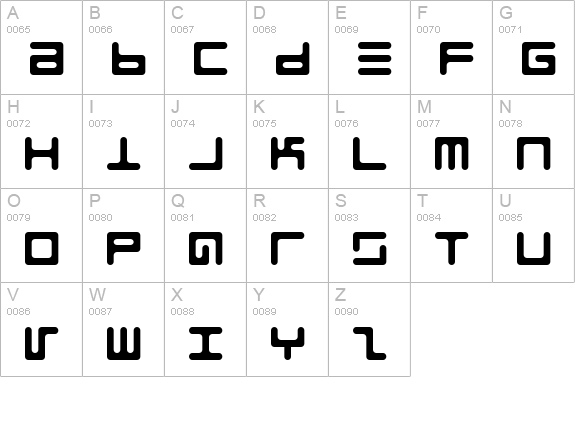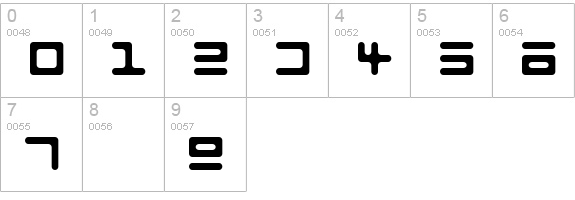
Epps Evans Round is a charming and elegant font that exudes a sense of sophistication and modernity. Its rounded edges and smooth curves give it a friendly and approachable appearance, making it perfect for a wide range of design projects. Whether you're creating invitations, branding materials, or social media graphics, this versatile typeface will add a touch of whimsy and style to your work. What makes Epps Evans Round even more appealing is that it is available for free download at FontsMarket.com. This means that you can easily access this beautiful font and use it in your projects without any cost. With its clean lines and unique personality, Epps Evans Round is sure to elevate your designs and make them stand out from the crowd. Don't miss out on this opportunity to enhance your creative endeavors with this fantastic free font!